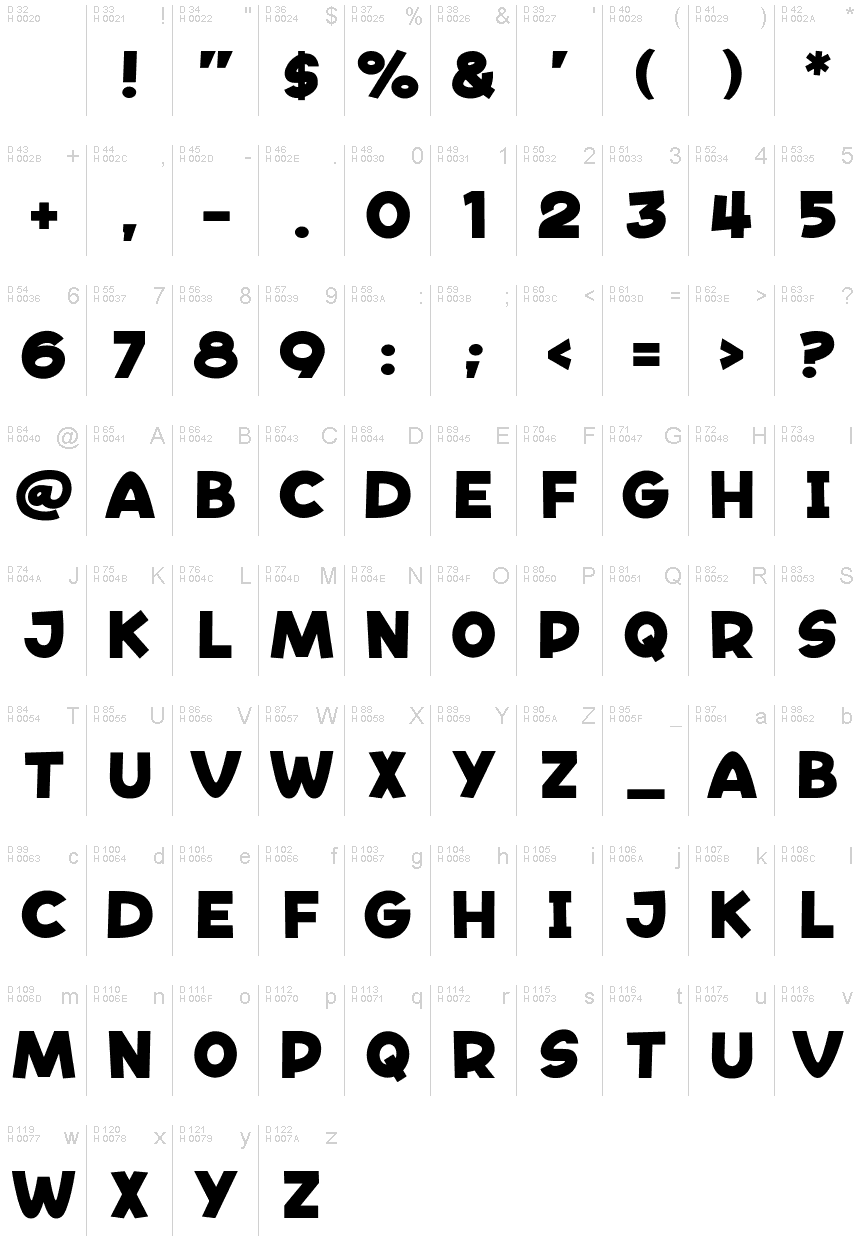
Wheat Smile
Wheat Smile, designed by Khurasan, is a playful display font that adds character to any project. With its bold weight and semi-expanded width, it's perfect for creating attention-grabbing headlines, posters and social media graphics. Its fun cartoon style makes it suitable for children's books, comic strips or any design that requires a touch of whimsy. Use this font to convey a sense of joy and lightheartedness in your designs. Whether you need to add some personality to your branding or create a memorable logo, Wheat Smile is the perfect choice for all your creative endeavors.